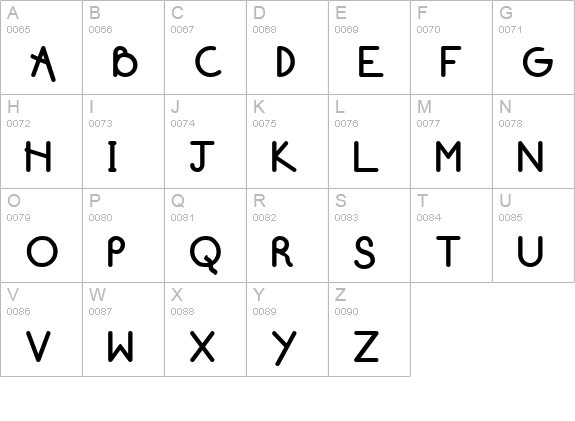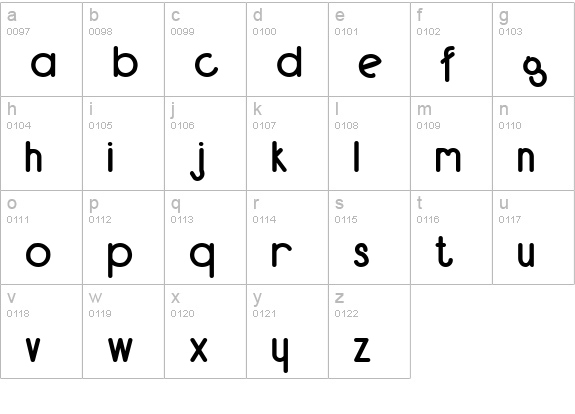
NeuSansBlack Font Details
NeuSansBlack is a stunning and versatile display font that exudes a sense of modernity and sophistication. With its bold and strong letterforms, this font is perfect for making a statement in any design project. Whether you are creating a logo, poster, or website, NeuSansBlack will add a touch of elegance and professionalism. The best part is, NeuSansBlack is completely free to use! You can easily download this font from FontsMarket.com and start incorporating it into your designs right away. Don't miss out on the opportunity to elevate your projects with this sleek and stylish typeface.